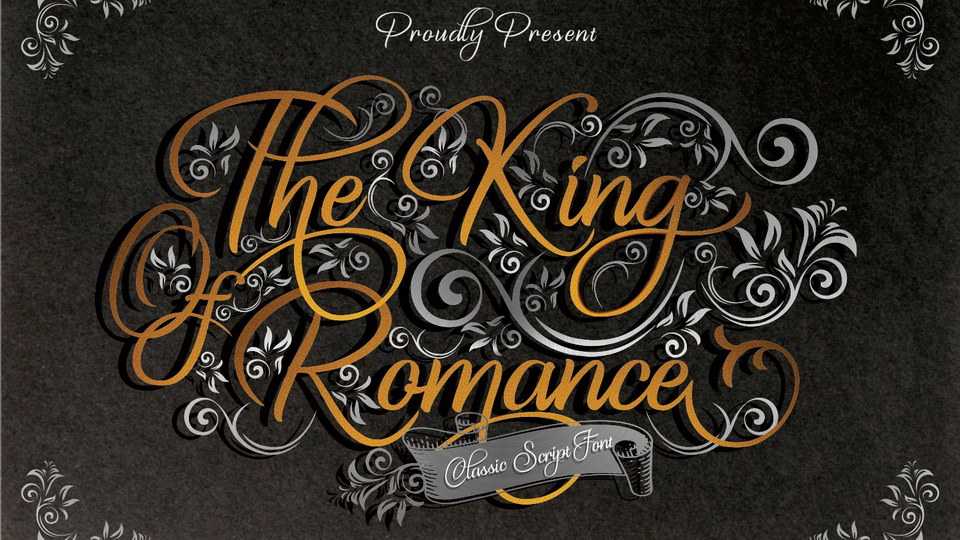
Download The King Of Romance font, a classic and elegant handwritten typeface. It is enriched with alternative characters and ligatures that make this font even more beautiful.